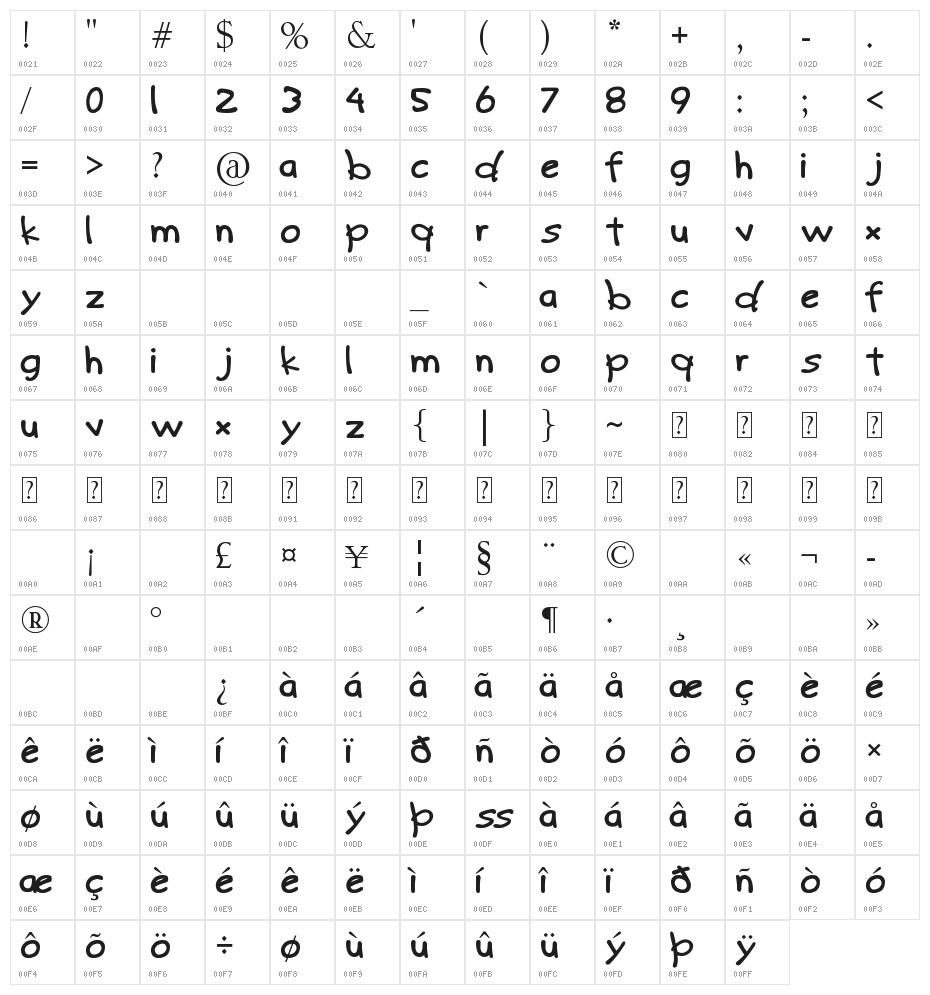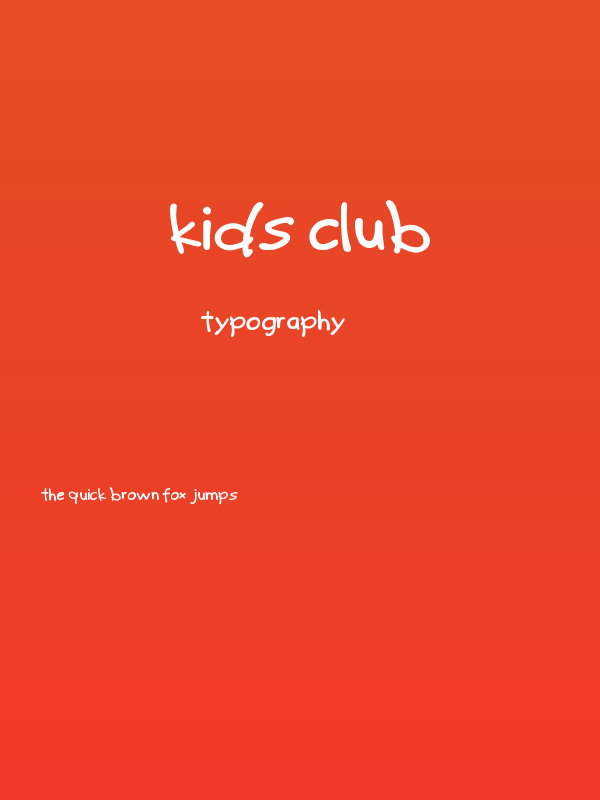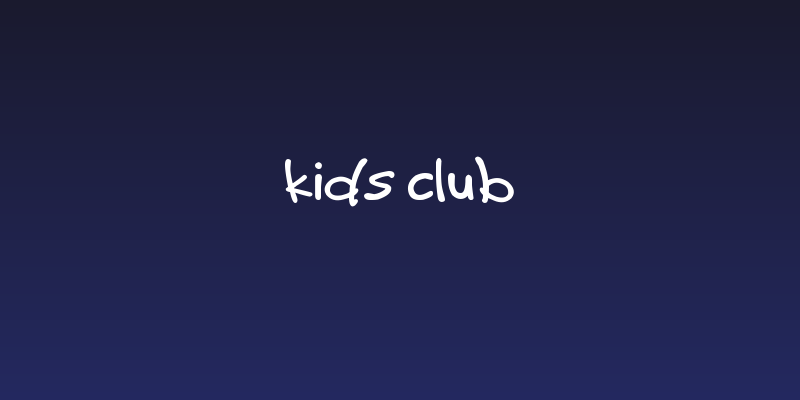
Kids Club Font
Kids Club Description
This playful and whimsical font features rounded, bubbly characters that convey a sense of fun and creativity. The letters are slightly irregular, adding a hand-drawn feel that is perfect for children's materials or informal settings. The font maintains a consistent stroke width, giving it a uniform appearance while still retaining its playful charm. The numbers and special characters are designed to match the playful style of the letters, ensuring a cohesive look across all text elements. This font is ideal for projects that require a lighthearted and approachable aesthetic.
| Use Case | Headlines, Logos, Informal text |
| Proposed Projects | Children's books, educational materials, playful branding, party invitations, and toy packaging. |